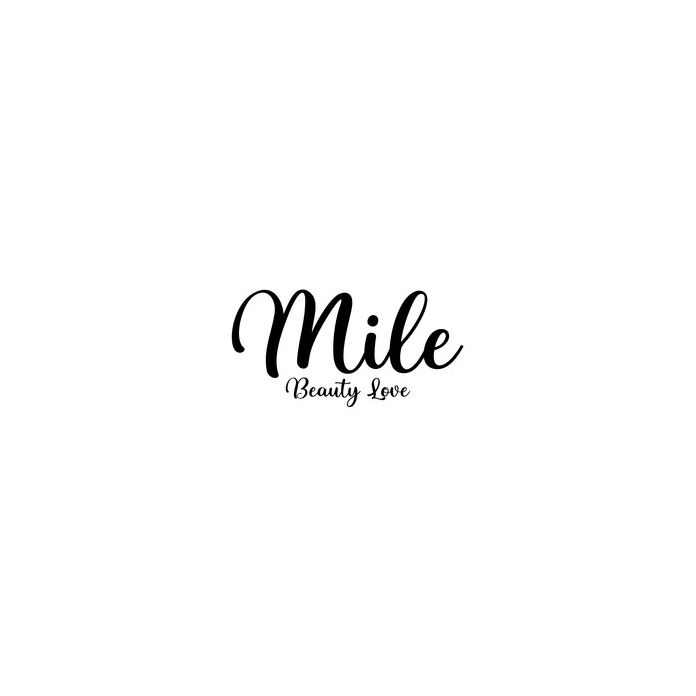
Mile script Elegant with a unique style of thick and solid handwriting. so productive and original to use today, Perfect for projects, products, crafts, invitations, and personalization. Includes alphabet, numbers, and punctuation.